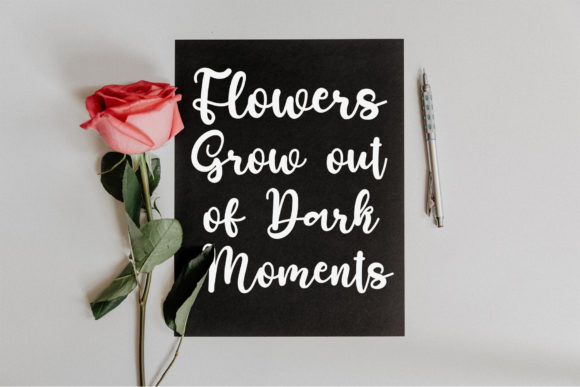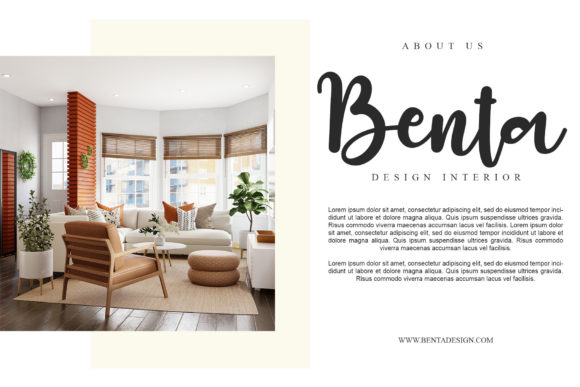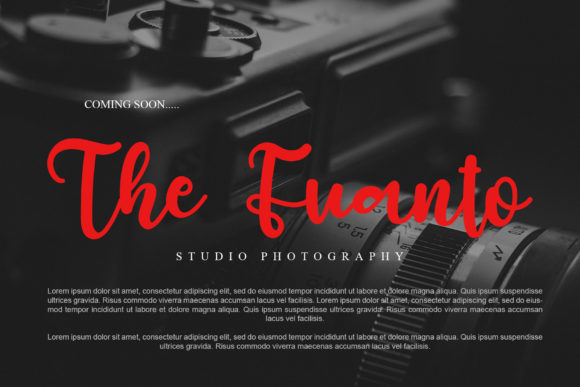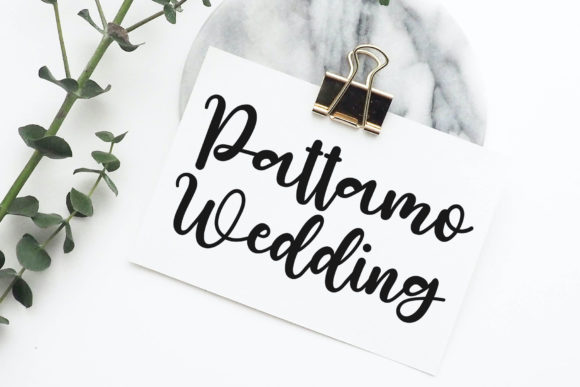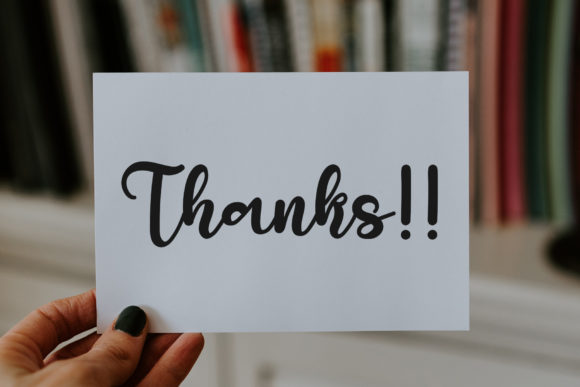
Handwriting Font
“Handwriting” is not just a font—it’s a symbol of chic refinement, exuding sophistication and elegance in every curve and stroke. With its stylish alternates and ligatures, this script font is the epitome of versatility, making it the perfect match for any project seeking a touch of class.
Its graceful letterforms and fluid lines add a sense of timeless beauty to any design, whether it’s used for branding, invitations, packaging, or editorial projects. The carefully crafted alternates and ligatures provide endless possibilities for customization, allowing designers to create unique and captivating compositions that stand out from the crowd.
Moreover, “Handwriting” is designed with practicality in mind, ensuring readability and legibility across various mediums and platforms. Whether it’s printed on paper or displayed on a digital screen, this font maintains its elegance and charm, ensuring your message is effectively communicated to your audience.
In addition to its aesthetic appeal, “Handwriting” offers a seamless user experience, thanks to its stylish alternates and ligatures. With easy access to these glyphs, designers can effortlessly enhance their designs with decorative elements, adding depth and personality to their work.
In conclusion, “Handwriting” is more than just a font—it’s a versatile tool that empowers designers to create sophisticated and elegant designs with ease. Its chic style and stylish alternates make it the perfect choice for any project seeking a touch of refinement and class. Whether you’re crafting a brand identity, designing invitations, or creating editorial layouts, “Handwriting” ensures your work exudes sophistication and elegance, leaving a lasting impression on your audience.